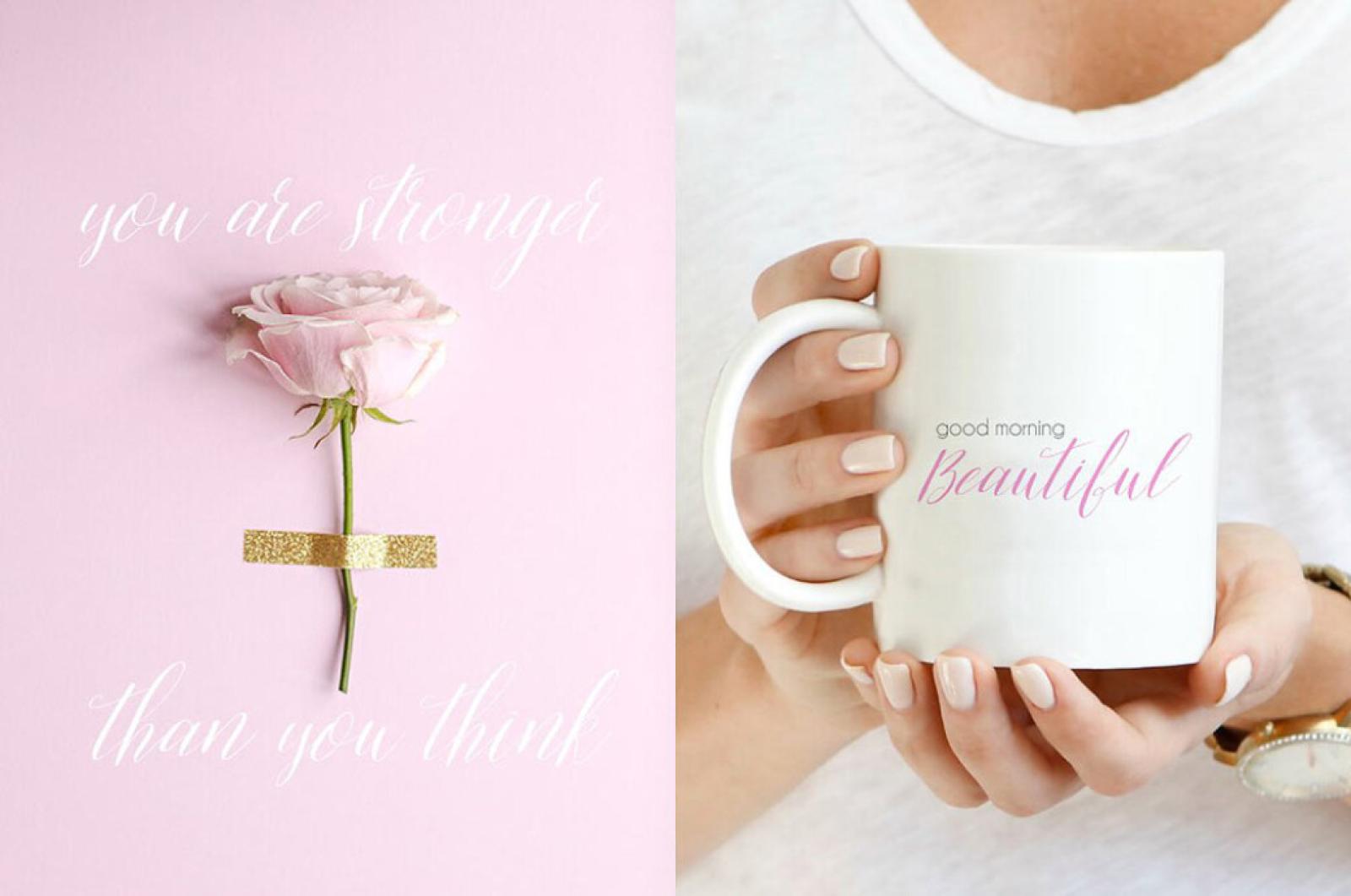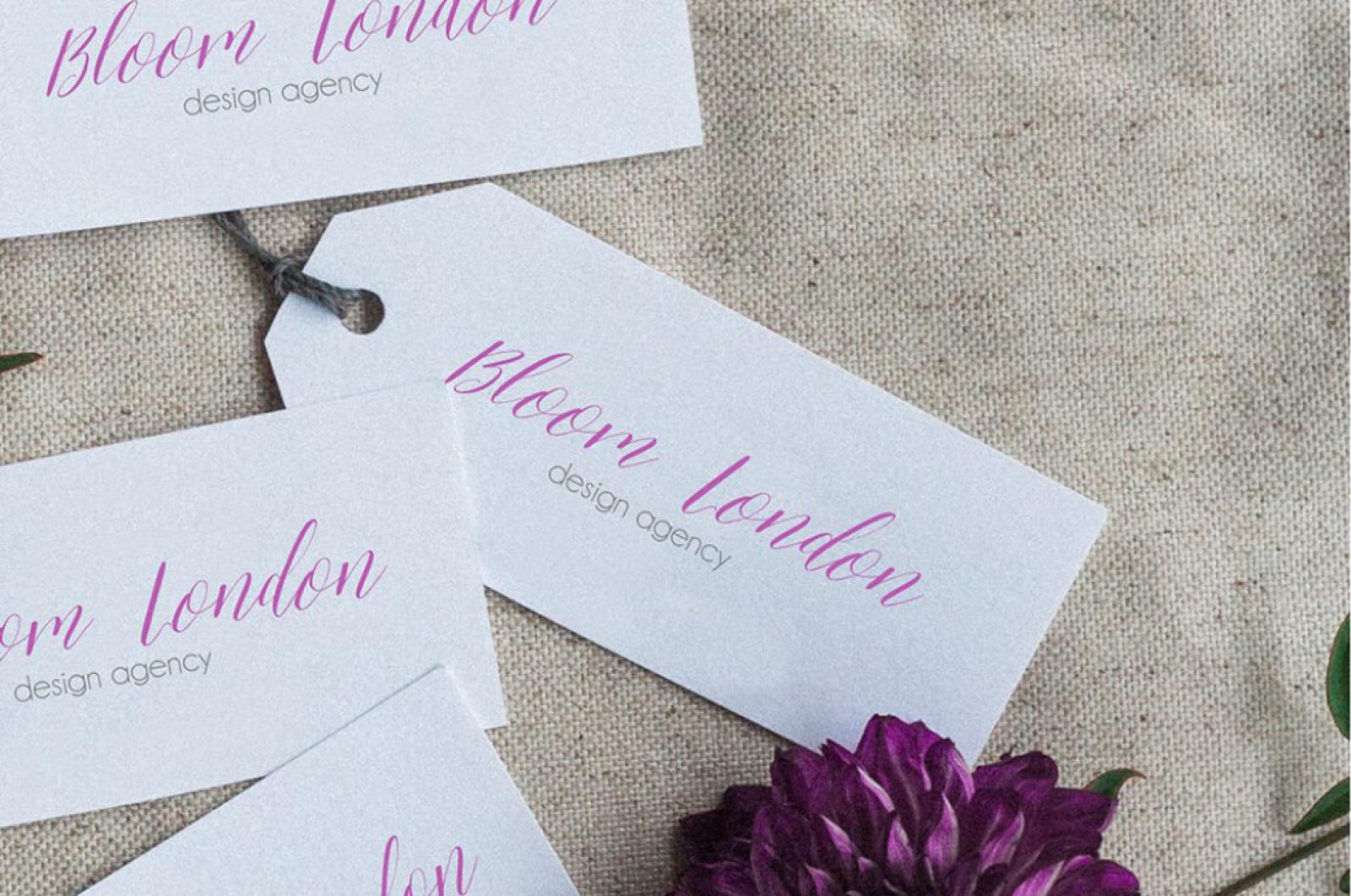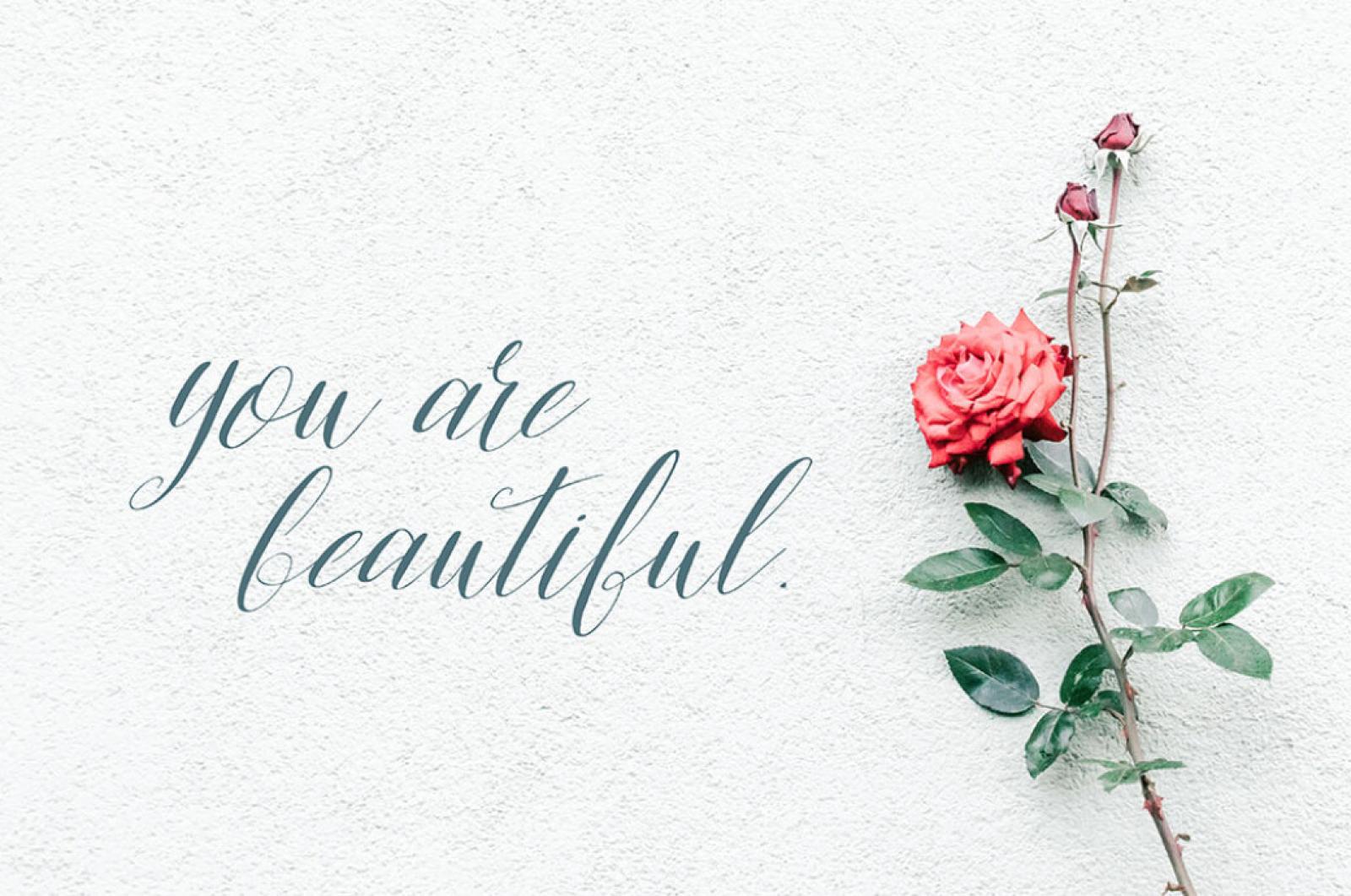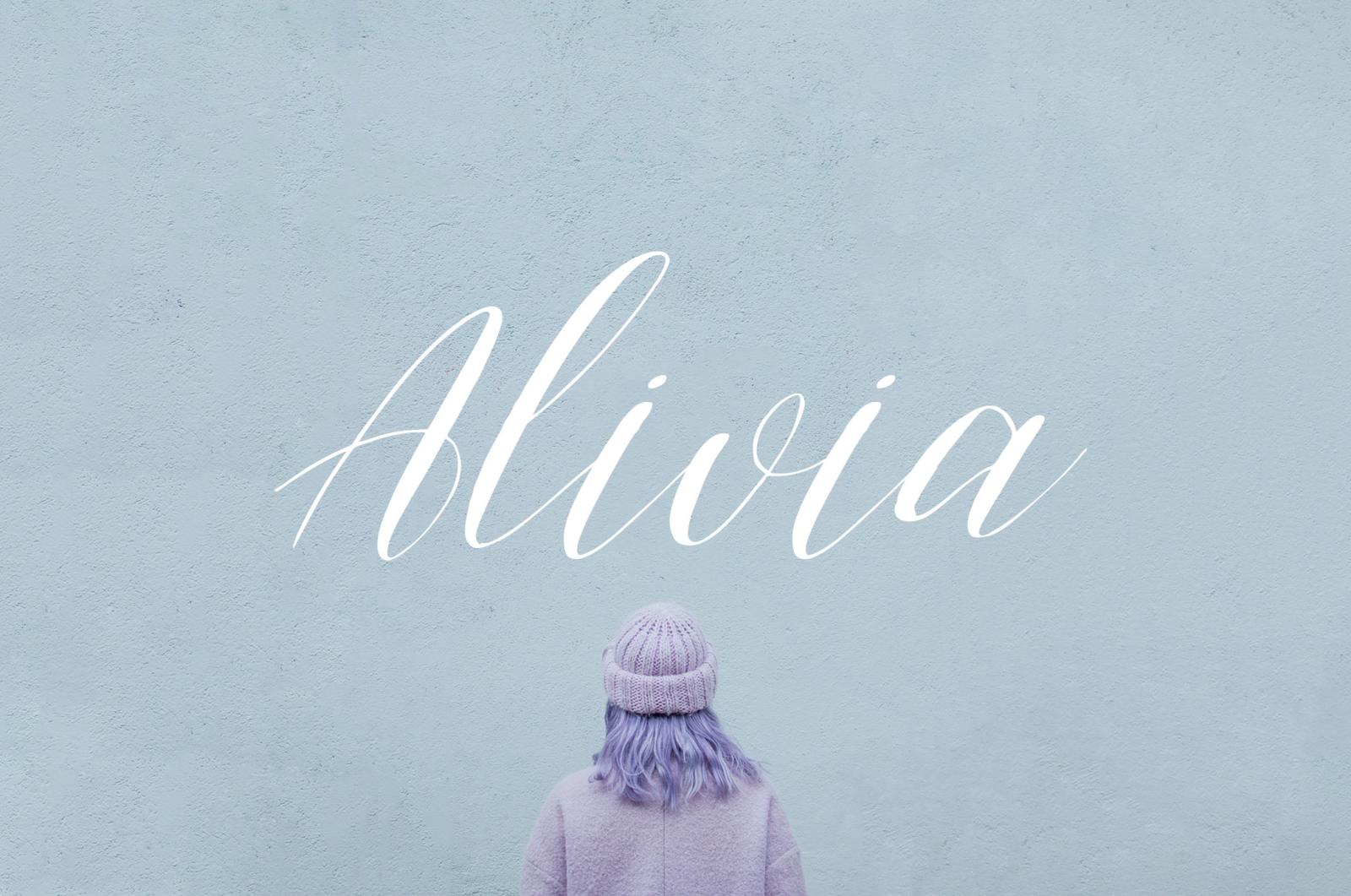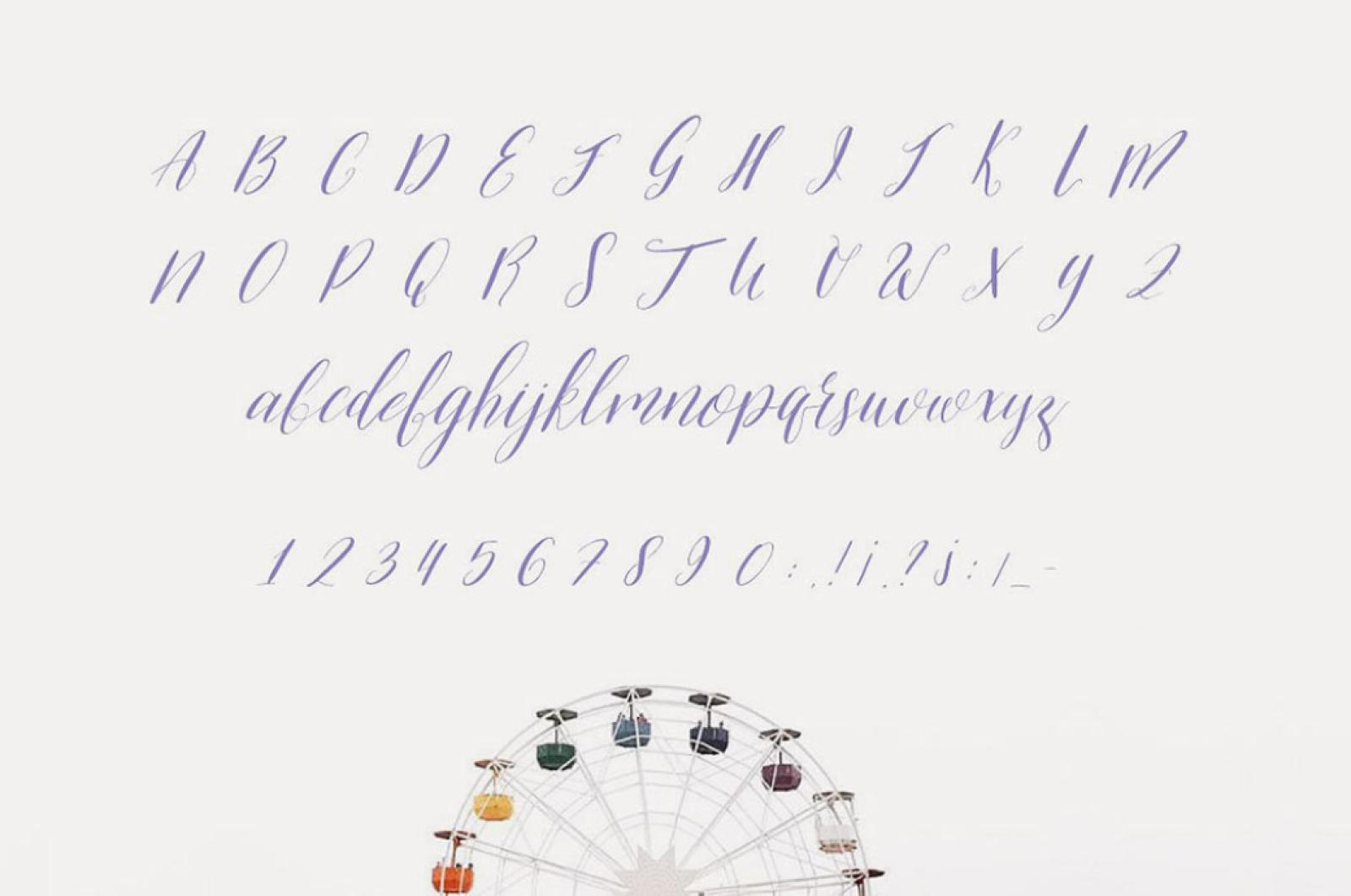
Alivia Script Font
This hand-written typeface will turn into a diamond of your designers toolbox and whatever you use it for. It is pure pride to embrace classic handwriting and the latest tendencies in one product!
Like time-tested novels by O.Henry, Hugo and Dostoevsky - but in fresh-printed book covers, catching your eye on a bookshelf. Use this striking font for your artworks - wedding invitations, cards, stationery, publishing the beauty of every single line, curve or swash will make the one let slip a word of amazement and great admiration.